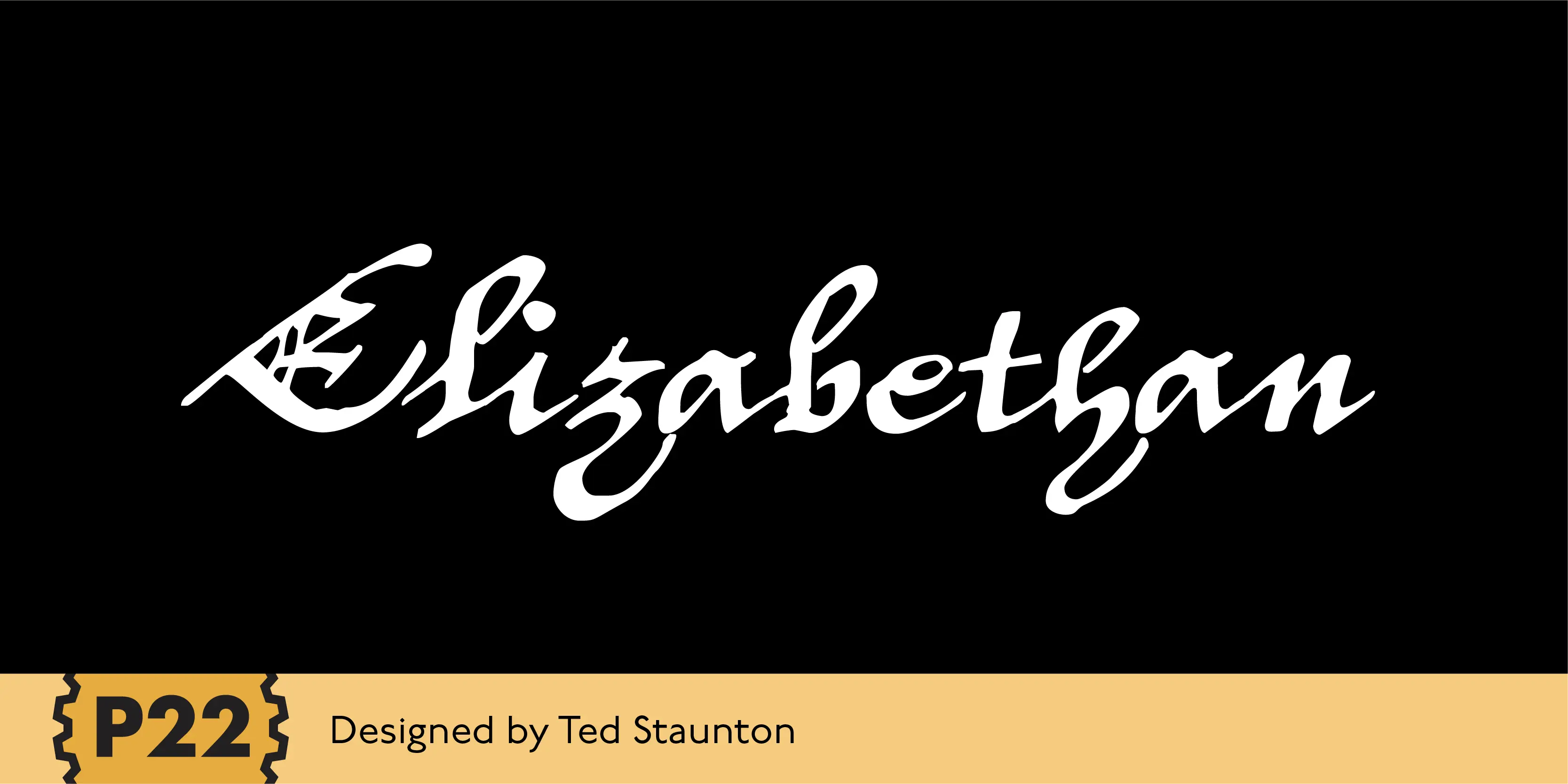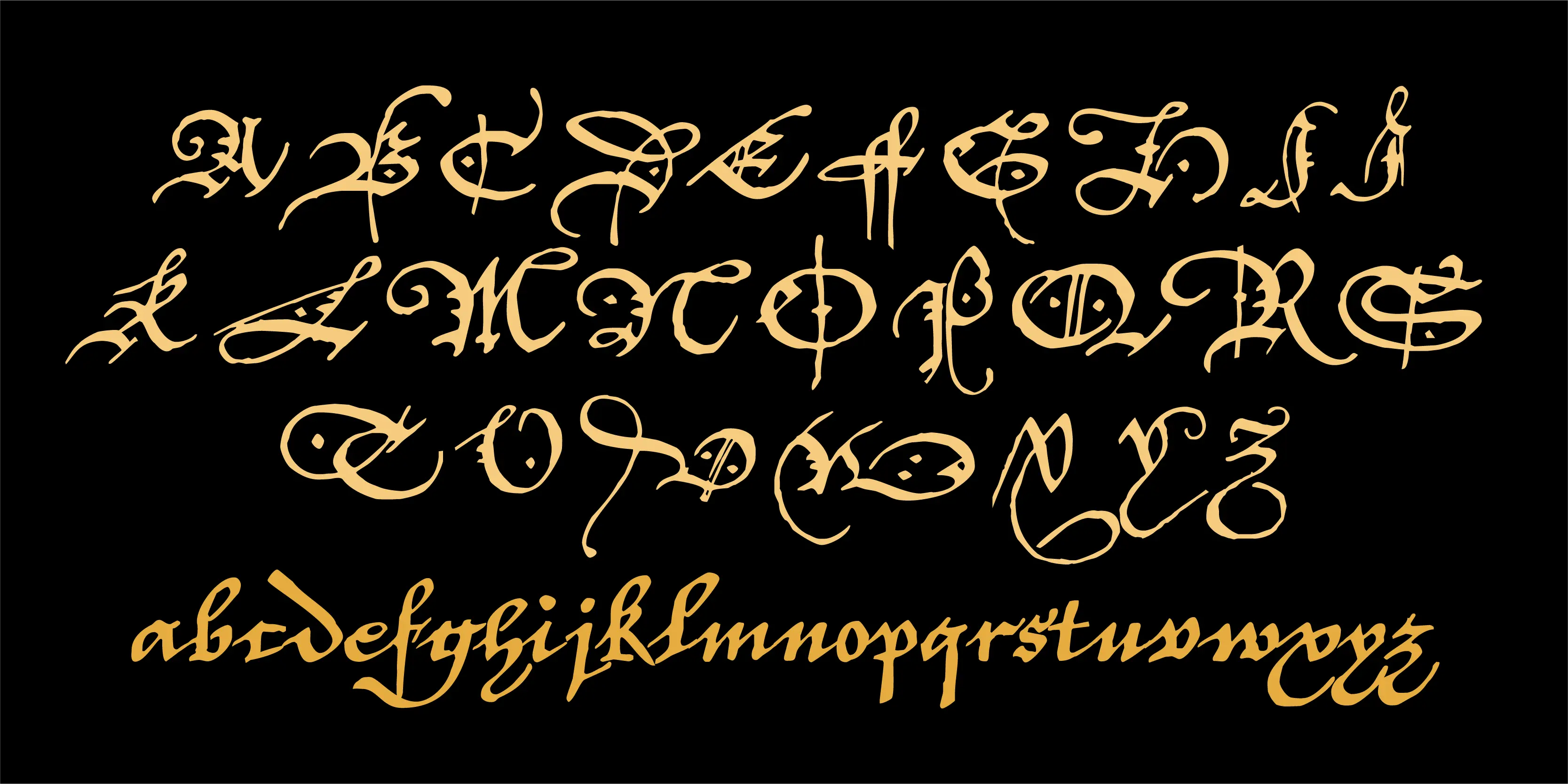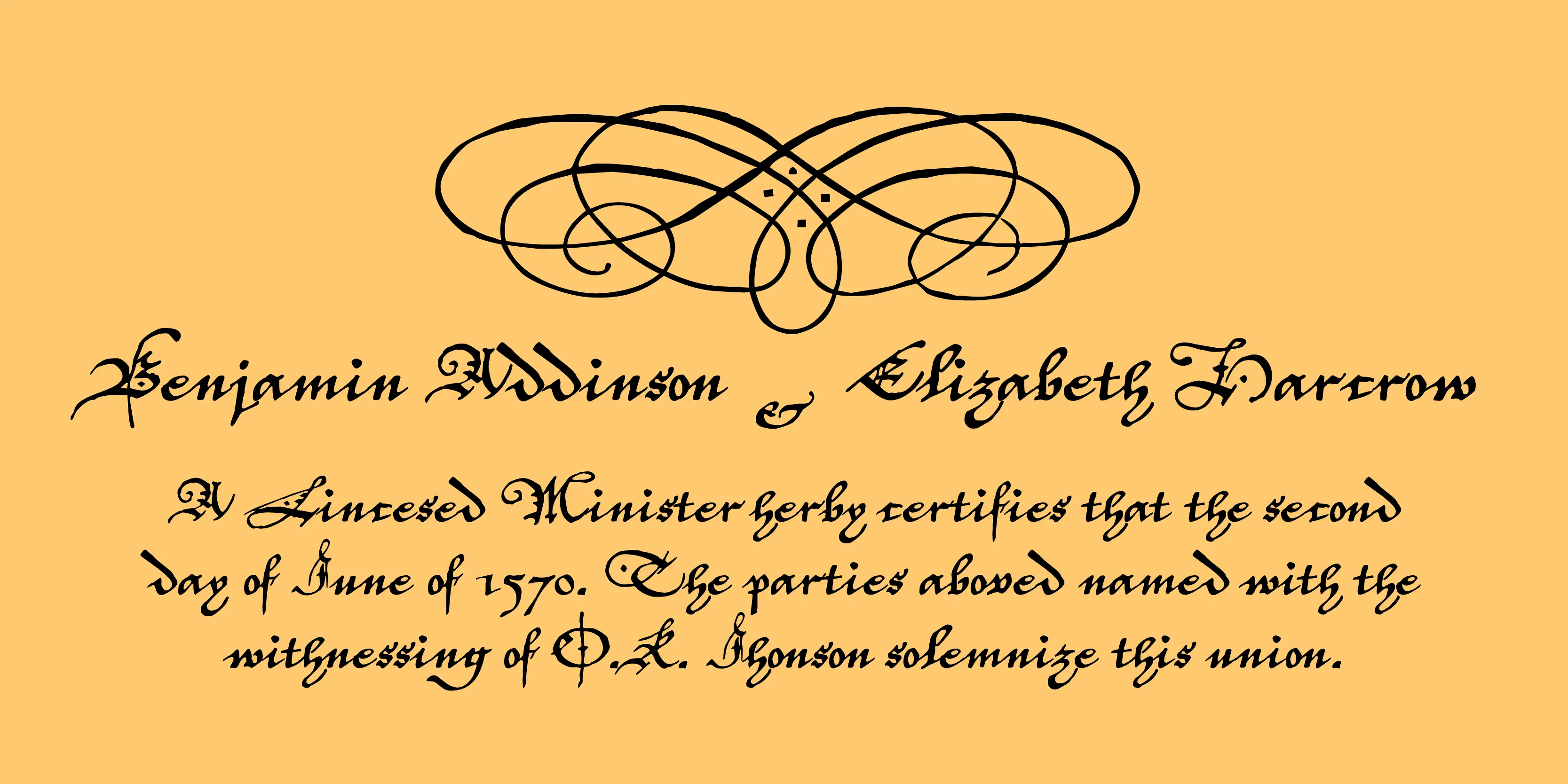
Elizabethan Font
Elizabethan
Elizabethan is part of the fonts designed by Ted Staunton for his historic novel centered around a family bible and the handwritten annotation through seven generations. The Elizabethan font is based on a style known as “secretary Script” circa 1610.